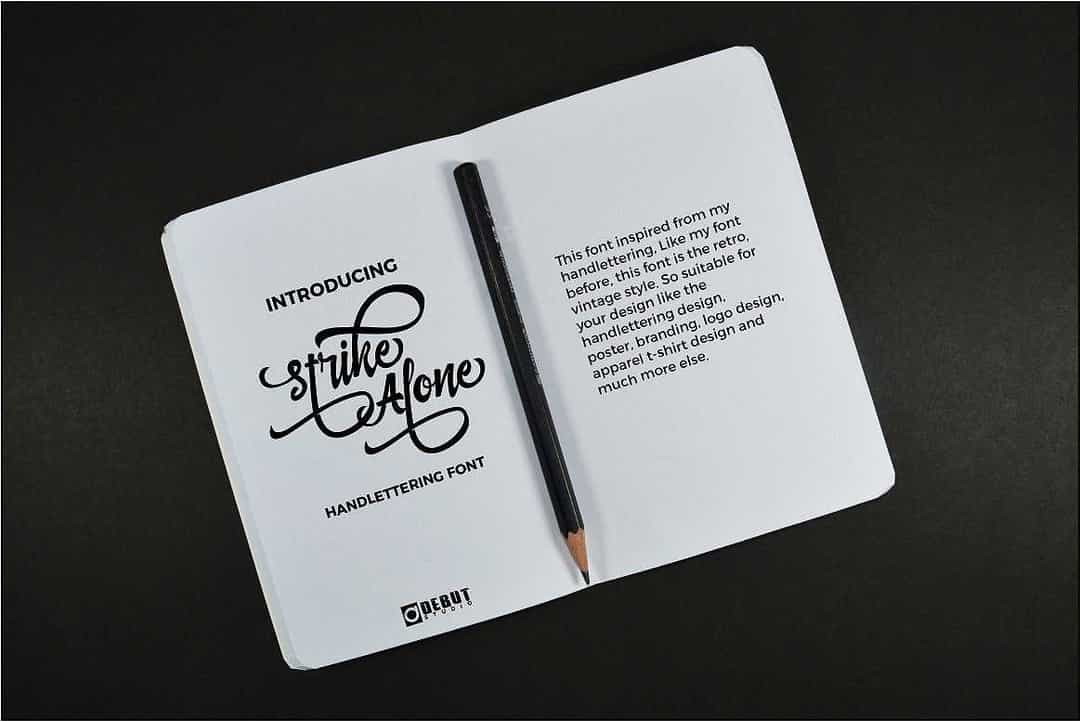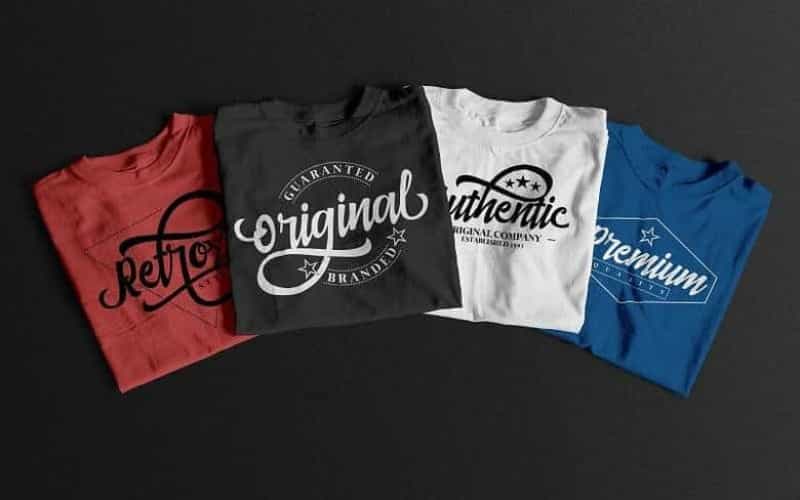
Strike Alone by Debut Studio is a modern font specially made for lettering. Boasting of its vintage look, Strike Alone font is ideal for handlettering designs, poster graphics, logo branding, logo design, t-shirts, and many more designs!